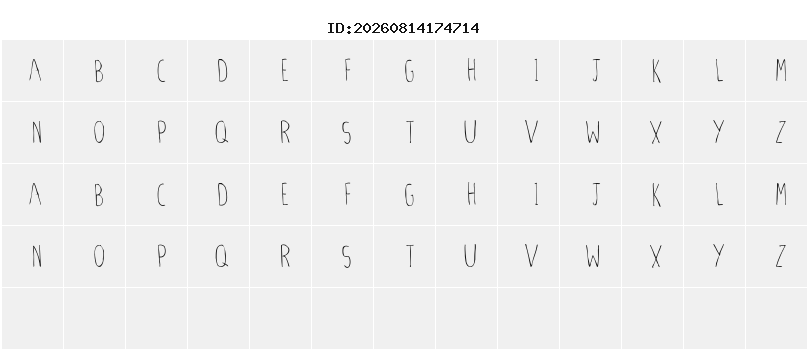
About Stiletto Skinny.ttf
Stiletto Skinny.ttf is a modern, elegant sans-serif font designed for ultimate readability and visual harmony. Perfect for branding, headlines, web design, and print materials.